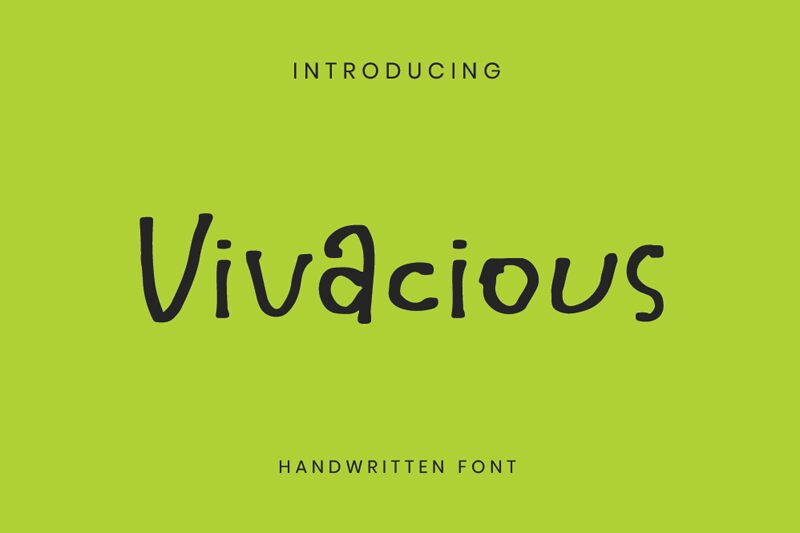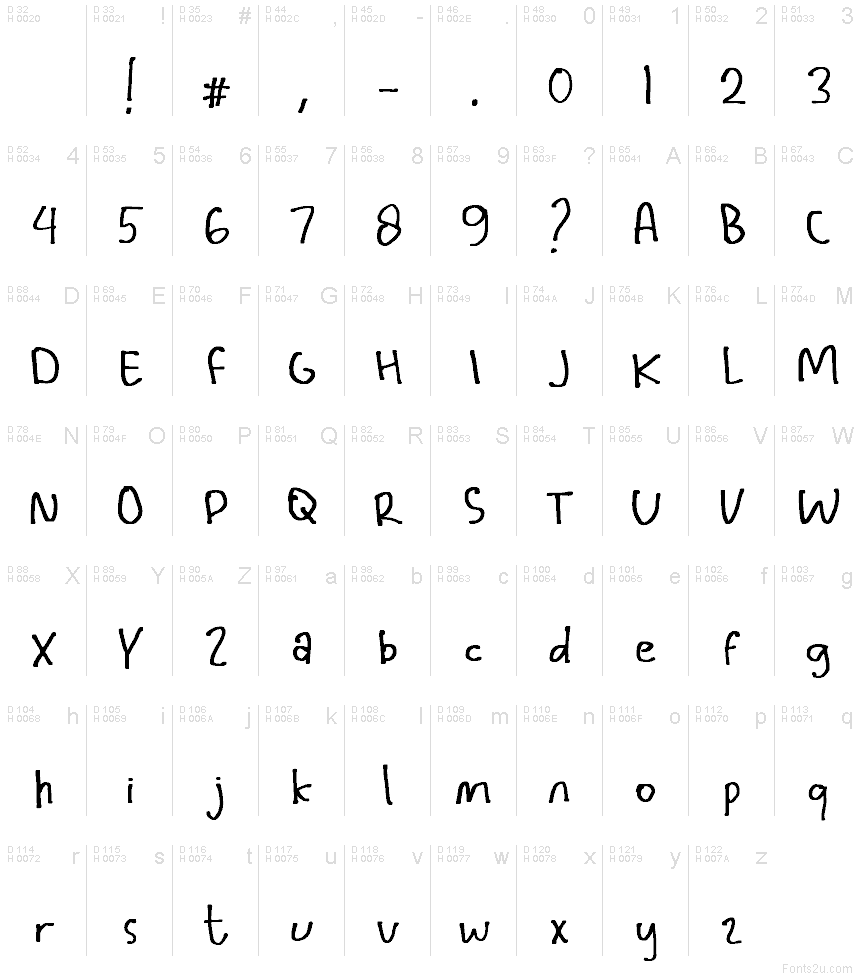
Vivacious HF Regular
Vivacious HF font by Just Handwritten Font is a free handwritten font with a bouncy, offbeat rhythm that feels like a note scrawled in the margin of a sketchbook. The letters wobble gently, with loopy curves and slightly uneven strokes that keep everything light, loose, and friendly. It has a hand-drawn, almost doodled energy that makes text feel personal and spontaneous instead of polished and stiff.
Using Vivacious HF, you can bring this playful voice to kids’ posters, classroom printables, birthday invitations, casual logos, stickers, and social media graphics. This free font holds up nicely at medium to large sizes, where its quirky details can breathe. For a simple pairing, set headlines in Vivacious HF and keep body text in a clean, rounded sans serif to balance the cheerful chaos.